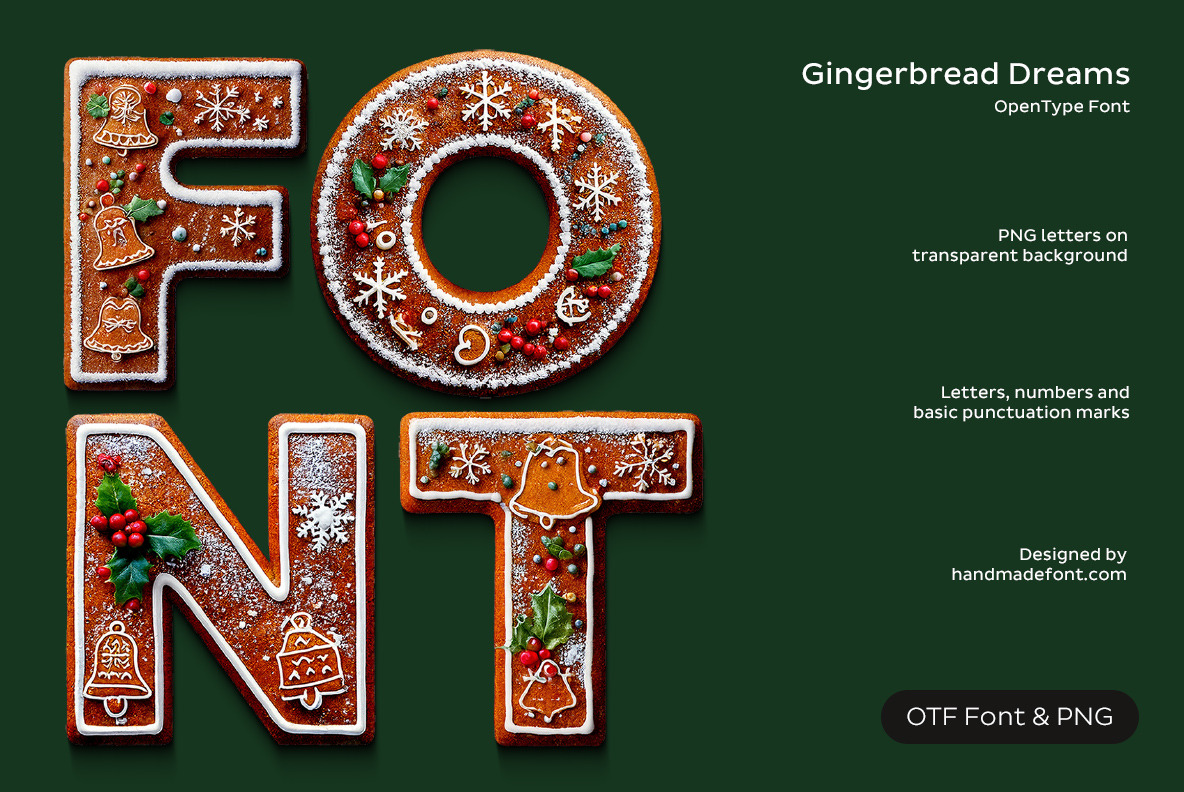
Gingerbread Dreams Font
Gingerbread Dreams Font brings the magic of Christmas baking straight to your design table. Shaped like real gingerbread cookies, each letter is adorned with snowy icing, tiny sugar pearls, and charming holiday motifs — bells, snowflakes, holly, and more. The font feels warm, joyful, and handcrafted, like something pulled fresh from grandma’s oven. Ideal for festive cards, seasonal ads, gift tags, and cozy winter branding, it adds a touch of edible whimsy to any message. Whether you're spreading cheer or decorating a design, Gingerbread Dreams is your sweet, spiced solution for the most magical time of the year.
A high definition OpenType Font. Contains uppercase characters, numerals and basic punctuation. (Draw height roughly 800 pixels). All letters and glyphs that comprises this font you can see on the preview.
- Letters : A B C D E F G H I J K L M N O P Q R S T U V W X Y Z
- Numbers : 0 1 2 3 4 5 6 7 8 9
- Others : ! ? - . ' $ € % & #